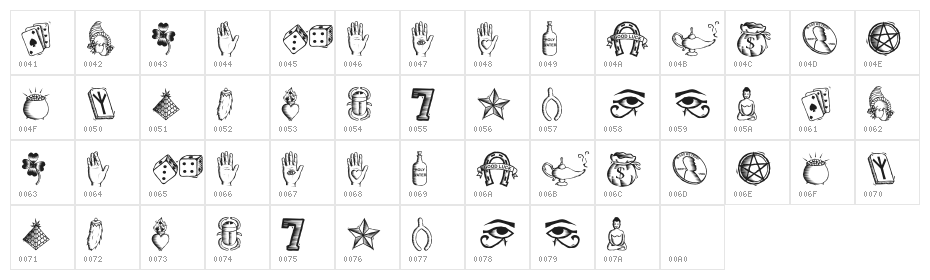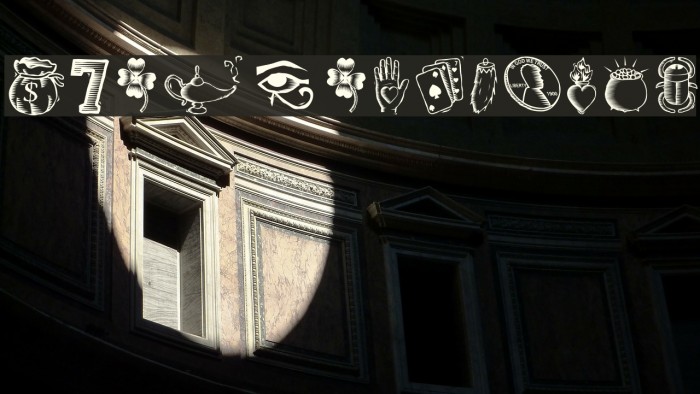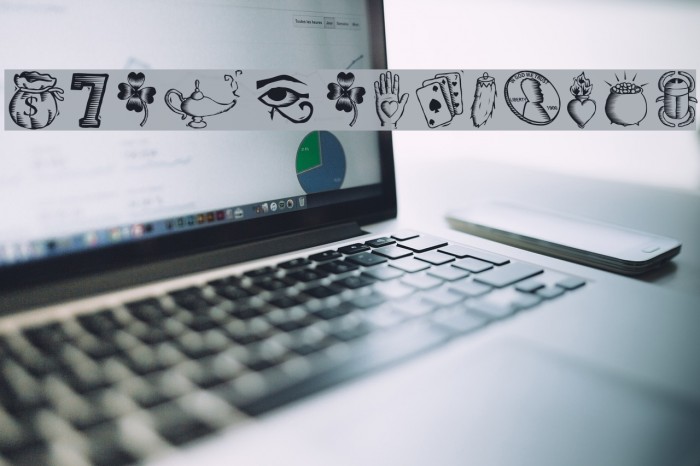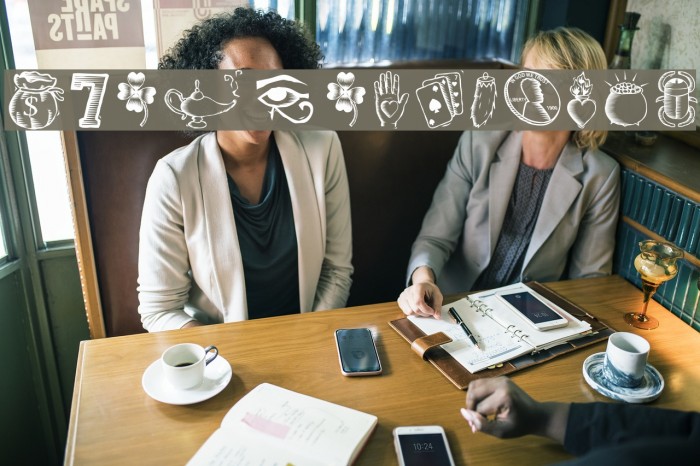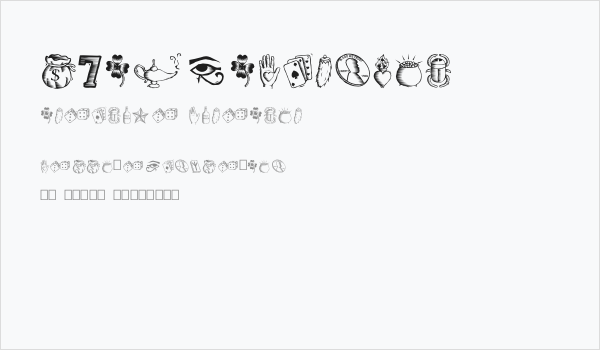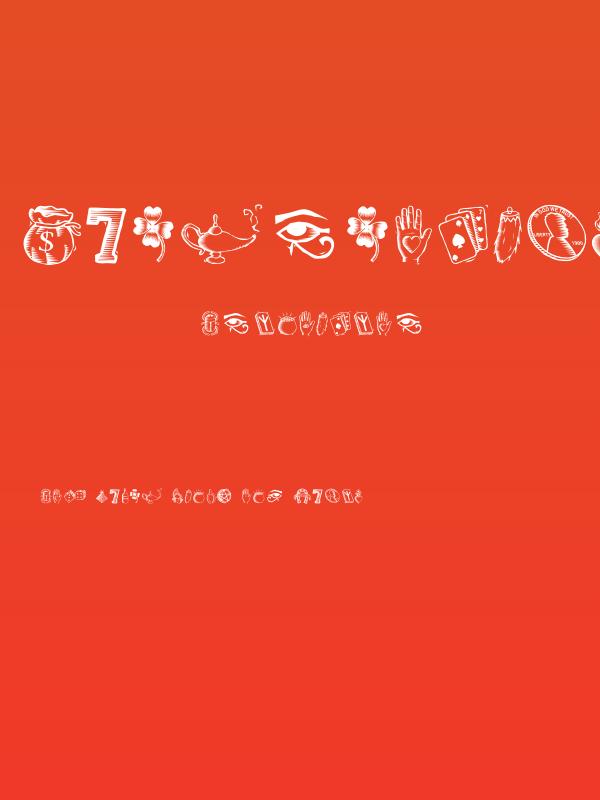
LuckyCharmsOT Font
LuckyCharmsOT Description
A highly decorative and illustrative font featuring hand-drawn lucky charm symbols such as playing cards, clovers, dice, hands, horseshoes, stars, and other mystical or fortune-related icons. Each character is represented by a unique, detailed black-and-white drawing, giving the set a whimsical and vintage tattoo-inspired appearance.
| Overall Style | Decorative, Vintage, Whimsical |
| Use Case | Logos, Headlines, Posters, Themed Graphics |
| Proposed Projects | Tarot cards, game boards, posters, greeting cards, themed branding, event invitations, decorative signage. |